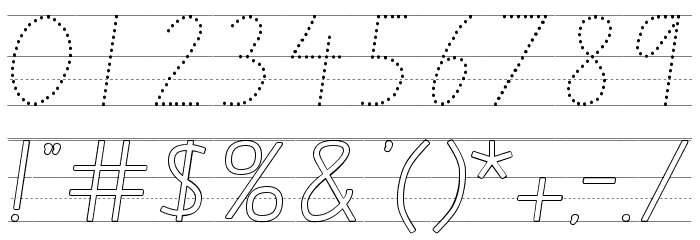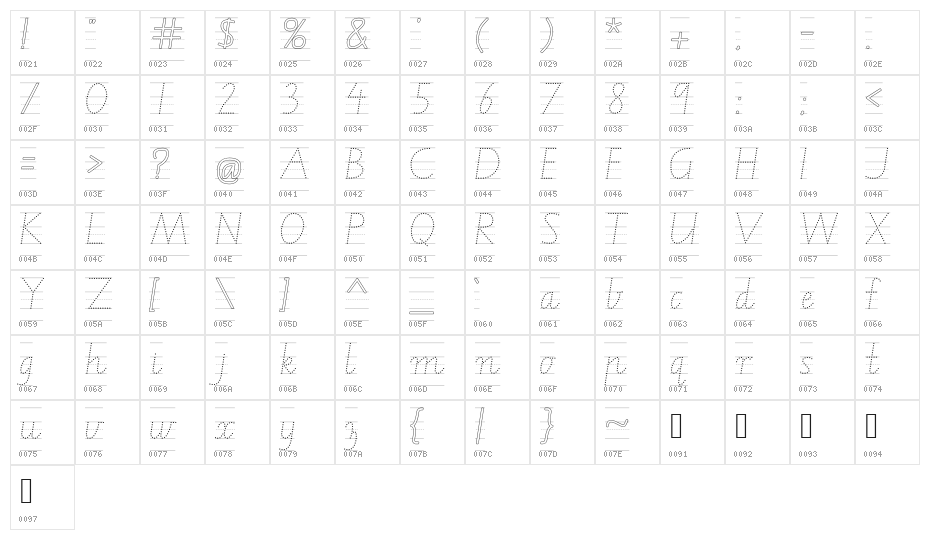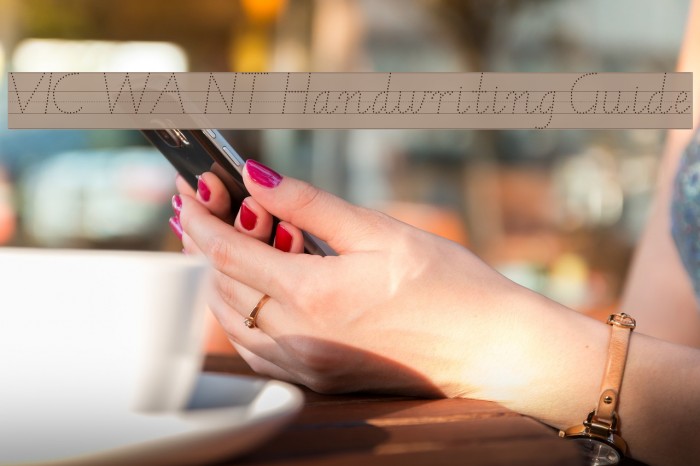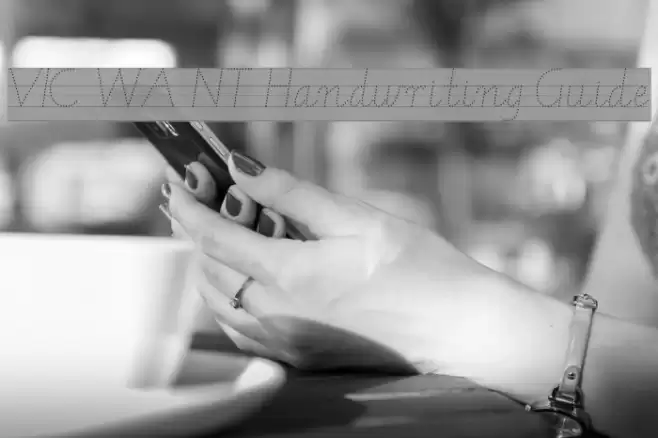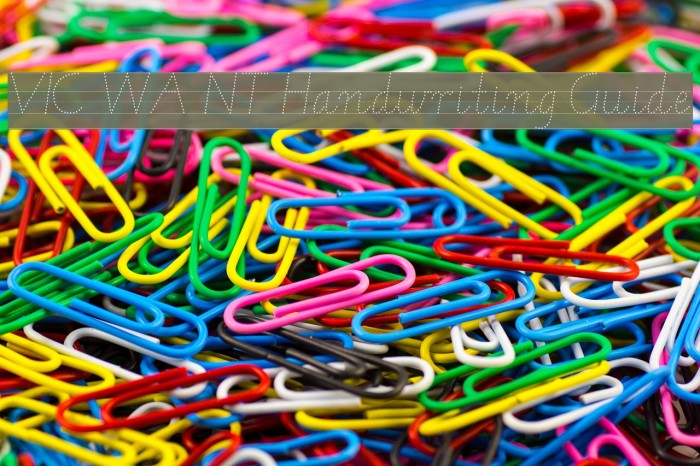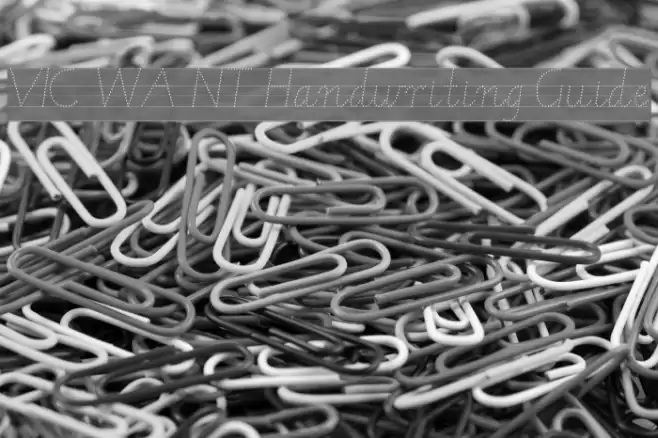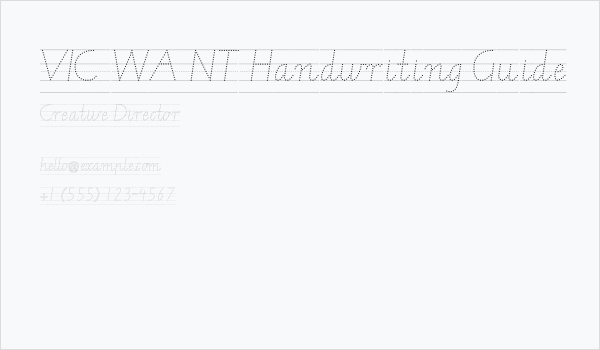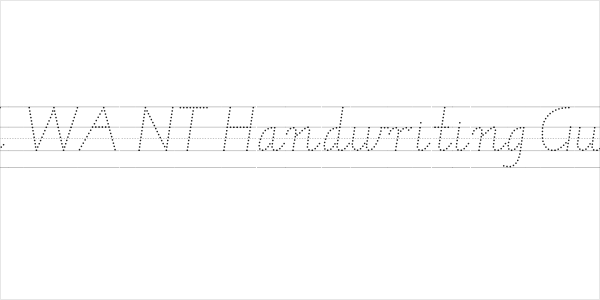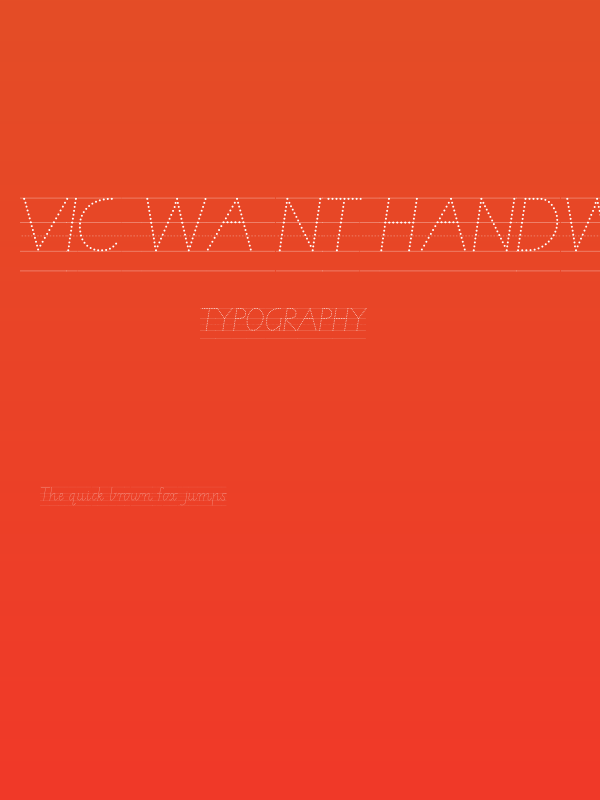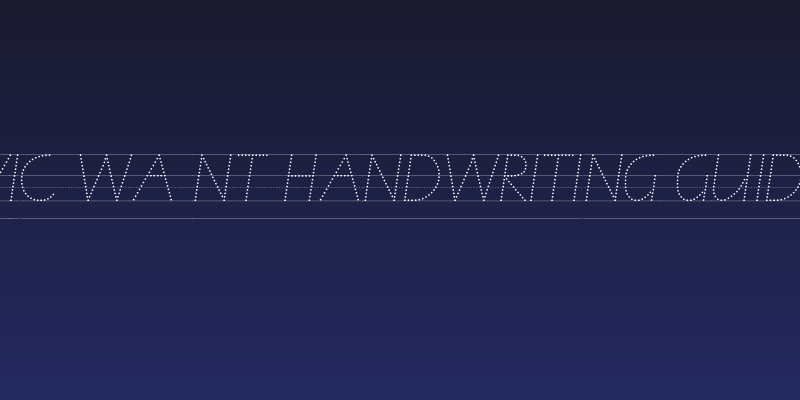
VIC WA NT Handwriting Guide Font
VIC WA NT Handwriting Guide Description
This font is designed as a handwriting guide, featuring dotted lines to assist in learning letter formation. The uppercase and lowercase letters are presented in a cursive style, with clear, rounded shapes that are easy to follow. The numbers and special characters maintain a consistent dotted pattern, aiding in the development of writing skills. The font is structured on lined paper, providing a visual guide for proper letter height and alignment. This educational tool is ideal for beginners learning to write in a cursive style, offering a clear and structured approach to handwriting practice.
| Overall Style | Educational, Instructional |
| Use Case | Handwriting practice, Educational tools |
| Proposed Projects | Ideal for educational materials, handwriting practice sheets, and beginner writing guides. |